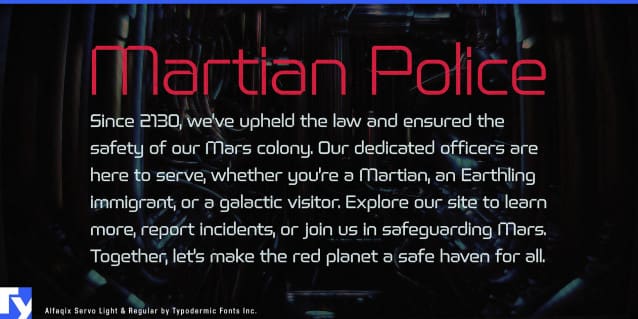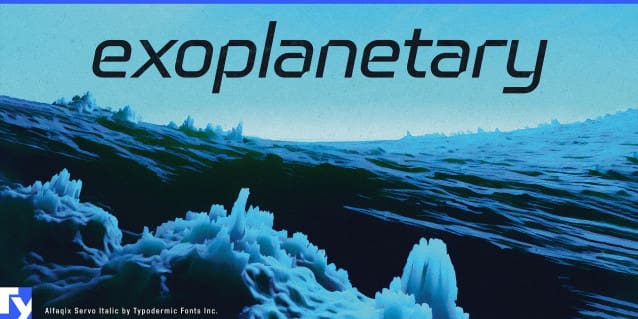
Alfaqix Servo Font Family
Alfaqix Servo Font Family, from Typodermic Fonts. This is where pure geometry meets cutting-edge design, taking you beyond the conventional to the extraordinary.
Alfaqix Servo carries the hallmarks of a progressive technological theme—a nod to the future, free from retro-futuristic clichés, and immersed in a squarish, modular style that defines the typeface’s distinct character. Unique reversed circular notches cut into the corners, bringing an unconventional dimension to this futuristic font.
Available in four weights—Light, Regular, SemiBold, and Bold, each with corresponding italics, Alfaqix Servo offers you a palette of possibilities. It’s the perfect complement to design themes that live at the intersection of innovation and technology, from cutting-edge app interfaces to next-gen product branding. With Alfaqix Servo, add an element of the exceptional to your work and let your designs speak the language of the future today.